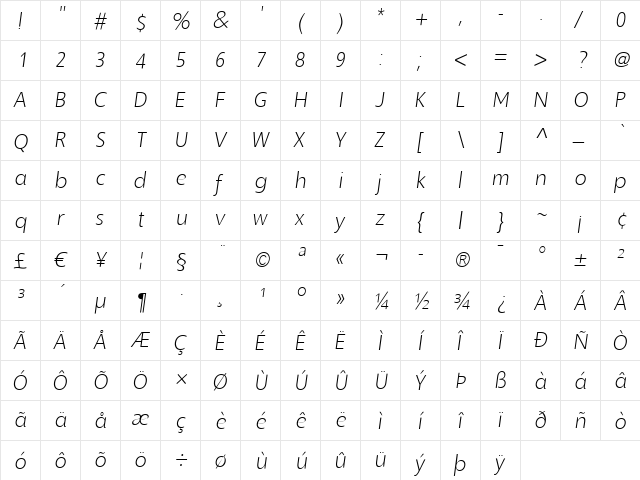
Slippy Light Italic Font Preview
Slippy Light Italic
Design Context for Slippy Typeface
Slippy offers clean, dependable letterforms without strong stylistic allegiance, making it a practical choice for designers who need flexibility. The dynamic lean of this cut emphasises speed and emphasis in any layout. The delicate stroke weight brings airiness and refinement to layouts.
Pro Tip: Use Slippy for emphasis, pull quotes, and subheadings where its slanted energy can add rhythm to the layout.